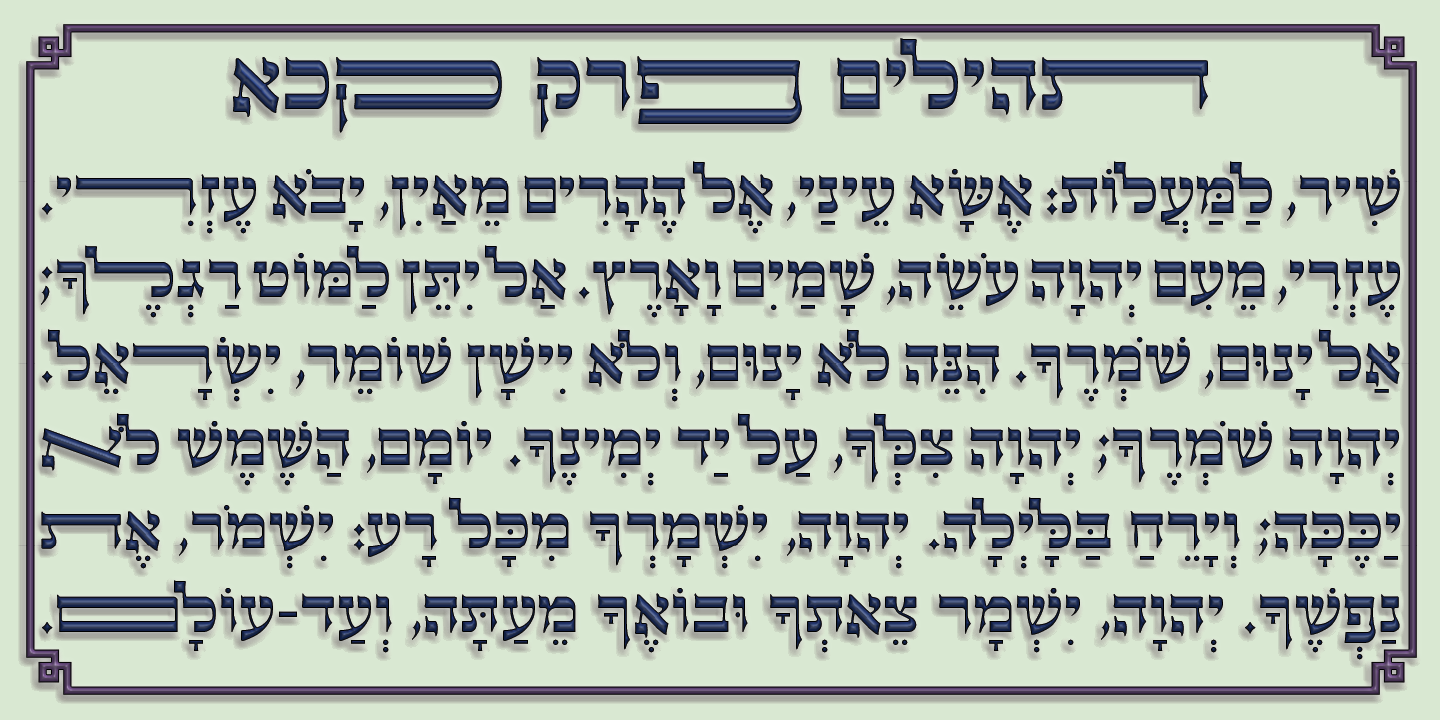
Hebrew Torah Sans Font is ideal for Jewish religious publications, synagogue communications, Hebrew educational materials, Torah study guides, Jewish cultural celebrations, religious ceremony invitations, Hebrew language learning resources, Jewish heritage projects, rabbinical documentation, and sacred text reproductions.
What makes Hebrew Torah Sans Font exciting is its sacred authenticity that perfectly captures the spiritual reverence and ancient wisdom found in Hebrew religious traditions and Torah scholarship. This typeface features clean Hebrew letterforms with traditional proportions and sacred details that ensure optimal readability for religious texts while maintaining the dignity and reverence of Hebrew sacred writing. The font's spiritual personality and Hebrew authenticity make it ideal for religious institutions seeking to convey reverence, tradition, and the sacred wisdom that comes from Hebrew religious heritage and Torah study excellence.
Hebrew Torah Sans Font family includes sacred weight variations and Hebrew alternatives that enhance its religious appeal while providing design flexibility for Hebrew and religious applications. The font features traditional ligatures, Hebrew-themed ornaments, and sacred character variations that create authentic religious atmosphere for Hebrew and Jewish cultural branding.
Jewish institutions and Hebrew educational organizations consistently choose Hebrew Torah Sans Font Free Download for projects requiring authentic Hebrew appeal and religious credibility. The font's sacred character excels in applications targeting Jewish communities, Hebrew students, and religious scholars who appreciate genuine Hebrew tradition and Torah study excellence. Whether you're designing for synagogues, Hebrew schools, or Jewish cultural organizations, this reverent typeface delivers the Hebrew authenticity and sacred dignity that resonates with audiences seeking genuine religious connection and the spiritual wisdom that defines Hebrew heritage and Torah scholarship tradition.